Kostić Type Foundry
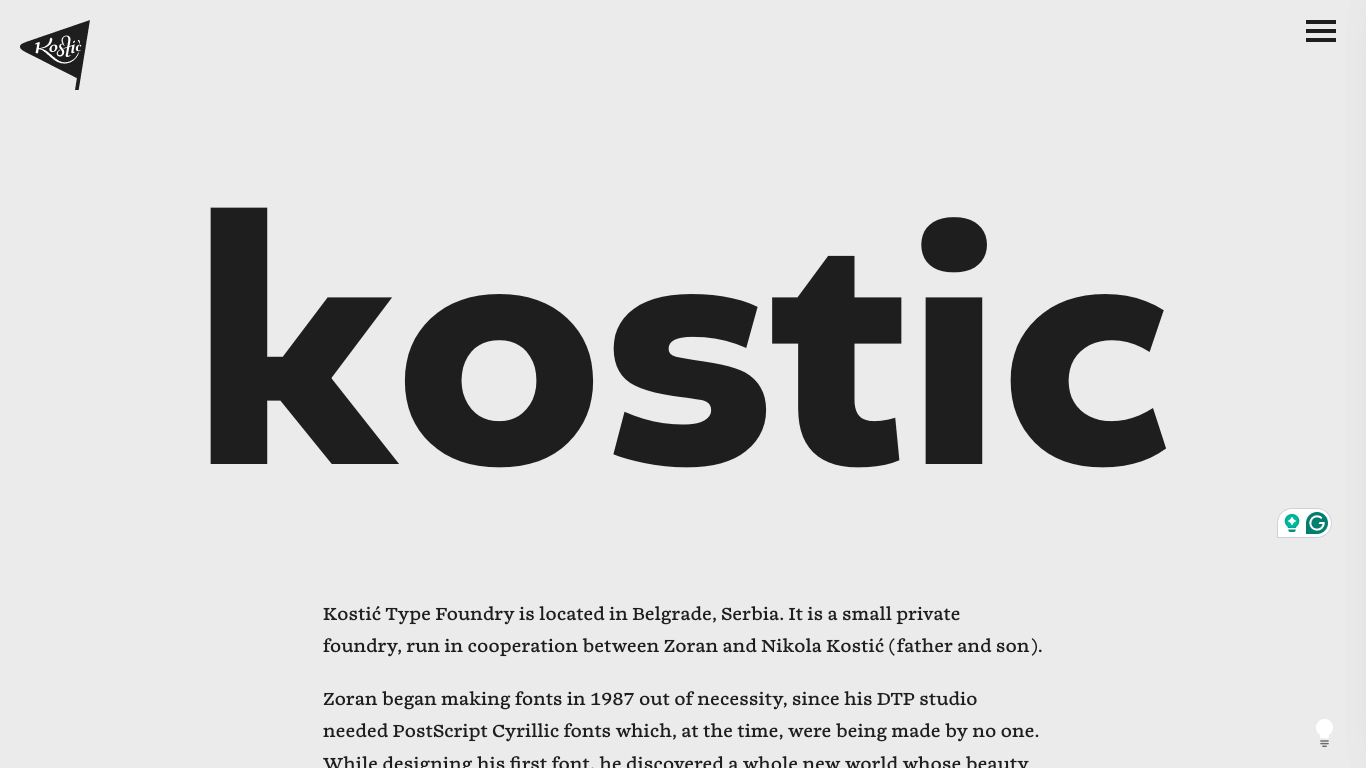
Serbia
Kostić Type Foundry, based in Belgrade, Serbia, is a private foundry operated by the father-and-son team of Zoran and Nikola Kostić. Zoran began creating fonts in 1987 to fulfill his DTP studio's need for PostScript Cyrillic fonts, leading to the development of the first such font in the former Yugoslavia. Nikola, with a background in graphic design, released his first font in 2011 and has since designed over a dozen typefaces. Notable typefaces include Chiavettieri (Modern Cyrillic 2014), Rizado Script (TDC 2019), Roc Grotesk, and Altivo—versatile sans-serifs featured on Adobe Fonts.